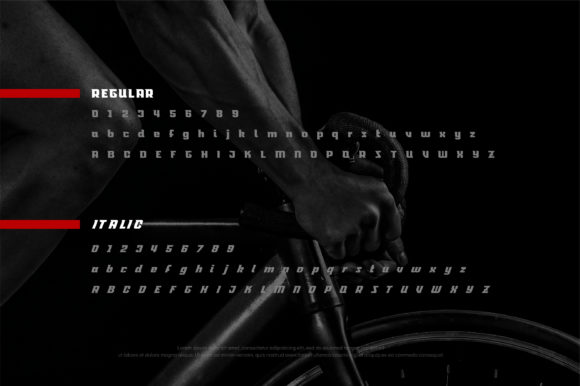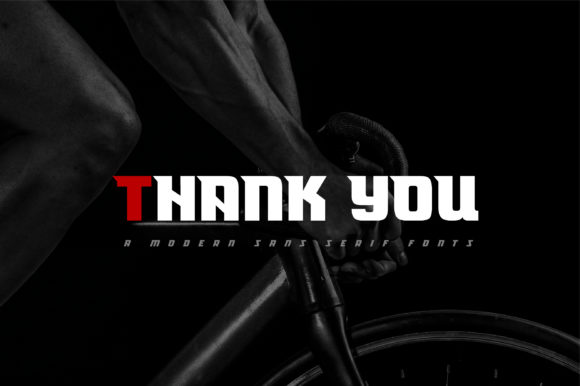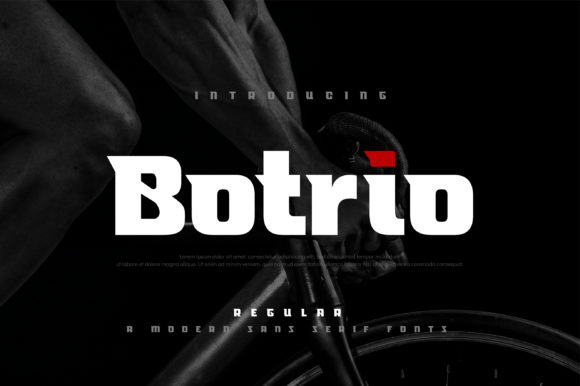
The Designer’s Delight: Exploring the Elegance of Botrio Font
I’ll never forget the time I was working on a luxury branding project, and my client asked for a font that exuded sophistication and elegance. I scoured the internet, tried out countless fonts, but nothing seemed to fit the bill. That was until I stumbled upon Botrio Font. ✨ It was love at first sight! The classy style, the unique flair, and the versatility of this display font won me over, and I’ve been hooked ever since.
An Honest Review of Botrio Font
- ✨ Unique and elegant design that’s perfect for making a statement
- ✅ Highly versatile and can be used for various design projects, from branding and logos to games and invitations
- 🌈 Beautifully crafted to add a touch of sophistication to any design
- 💻 Great for digital and print designs, with clear and crisp lines
While Botrio Font is an excellent choice for many design projects, there are a few things to keep in mind: 🤔
- ⚠️ May not be suitable for body text due to its display font nature
- ⚠️ Some OpenType features may not work in older software or browsers
- Experiment with OpenType features, such as stylistic alternates and glyphs, to add visual interest to your design
- Take advantage of OpenType features, such as ligatures and stylistic sets, to add depth and complexity to your design
The Backstory of Botrio Font
Botrio Font was designed with the intention of creating a unique and elegant display font that would add a touch of sophistication to any design. The designer aimed to craft a font that would be versatile and highly legible, making it perfect for a wide range of design projects.
| Font Name | Botrio Font |
| Author | geengraphy |
Q: What type of designs is Botrio Font best suited for?
A: Botrio Font is perfect for branding, logos, games, invitations, and any other design project that requires a touch of elegance and sophistication.
Q: Is Botrio Font easy to read?
A: Botrio Font is a display font, so it’s best used for headlines and titles. While it’s elegant and refined, it may not be the best choice for body text due to its unique design.